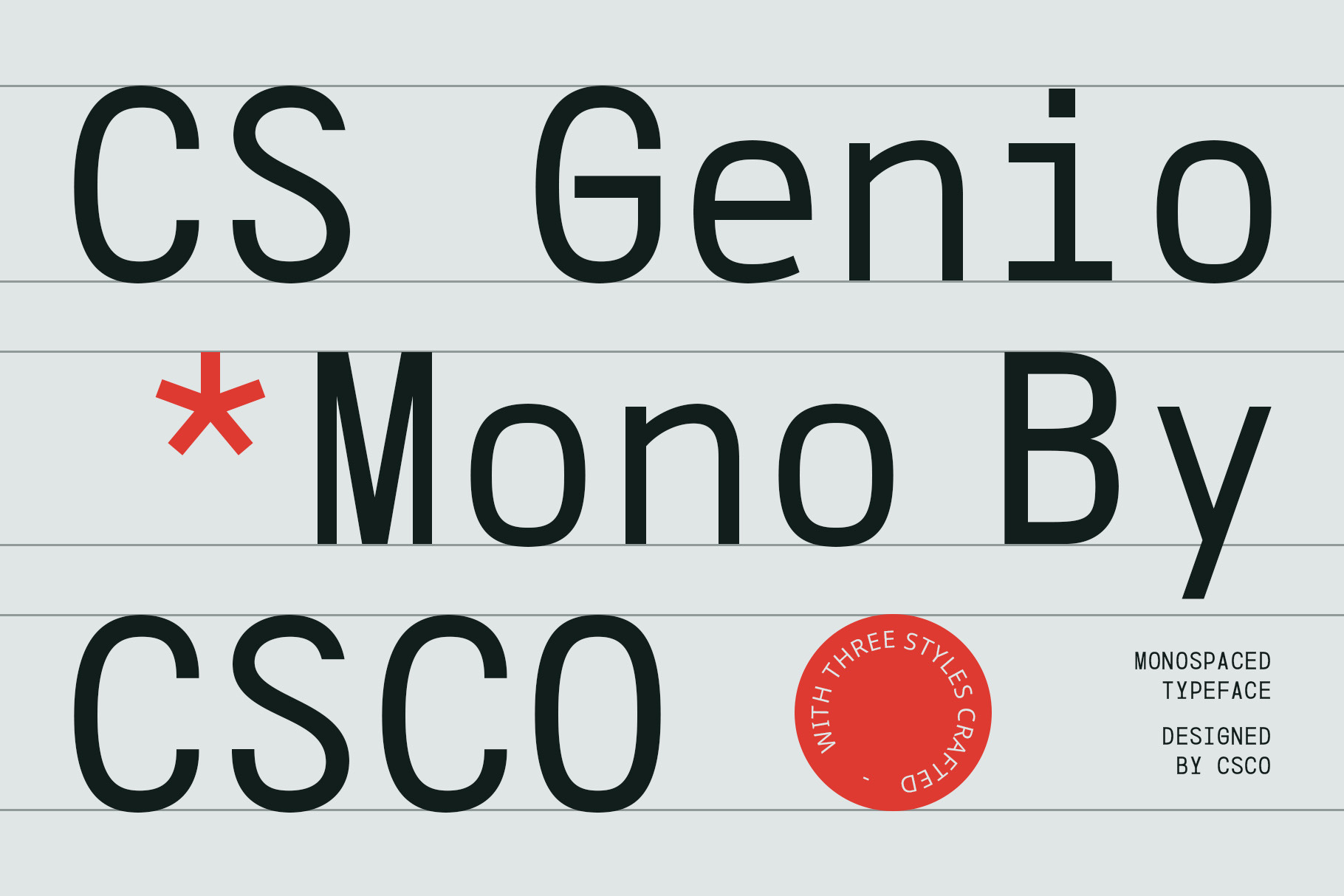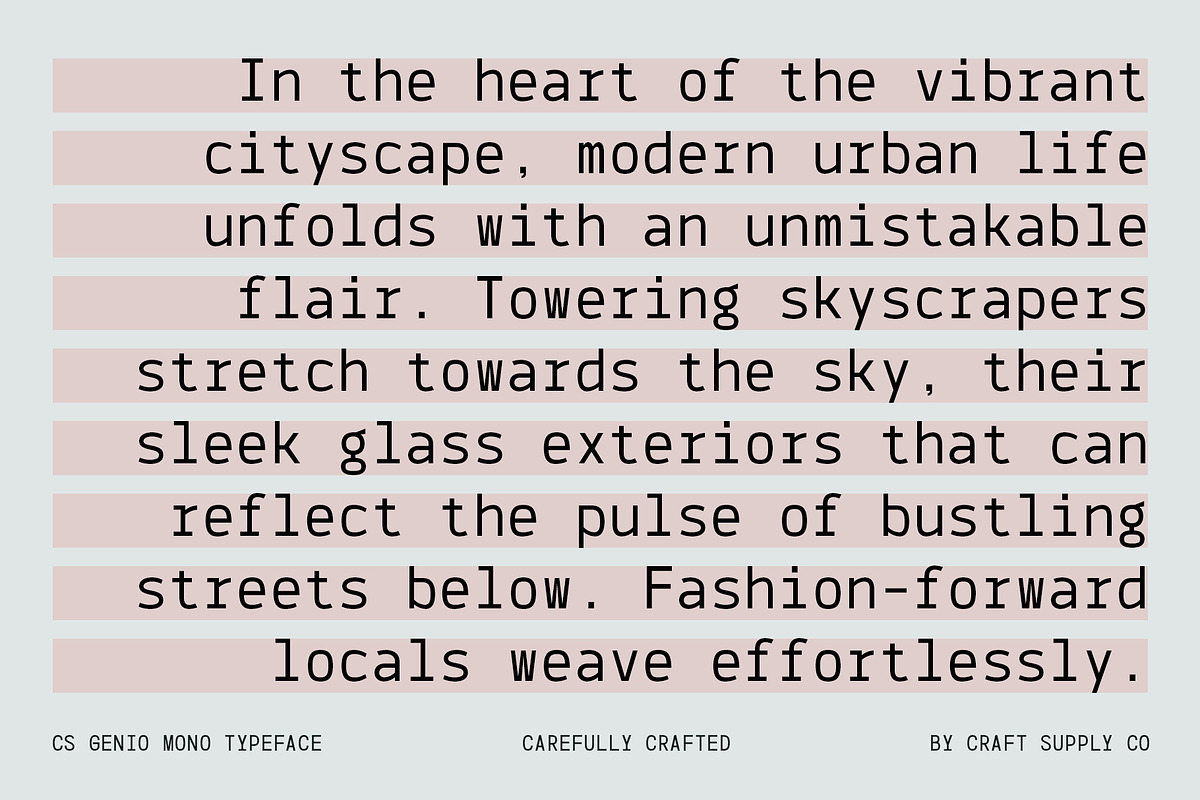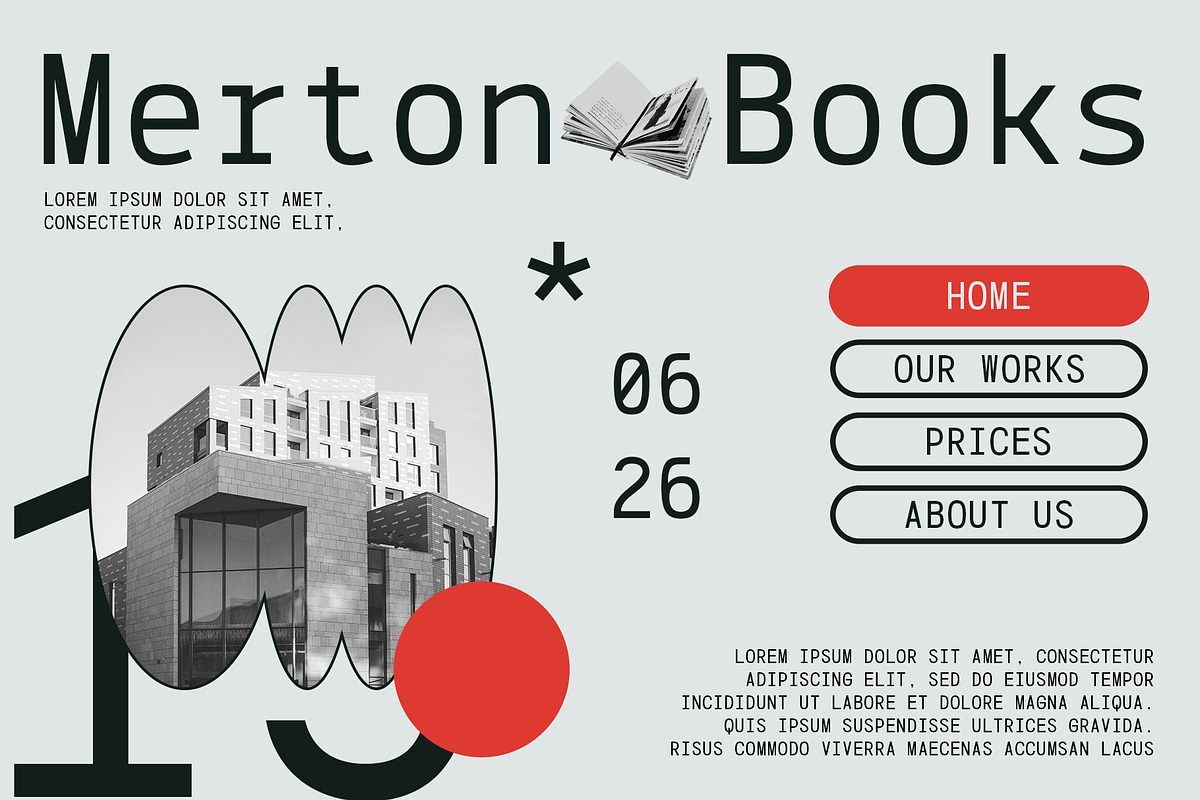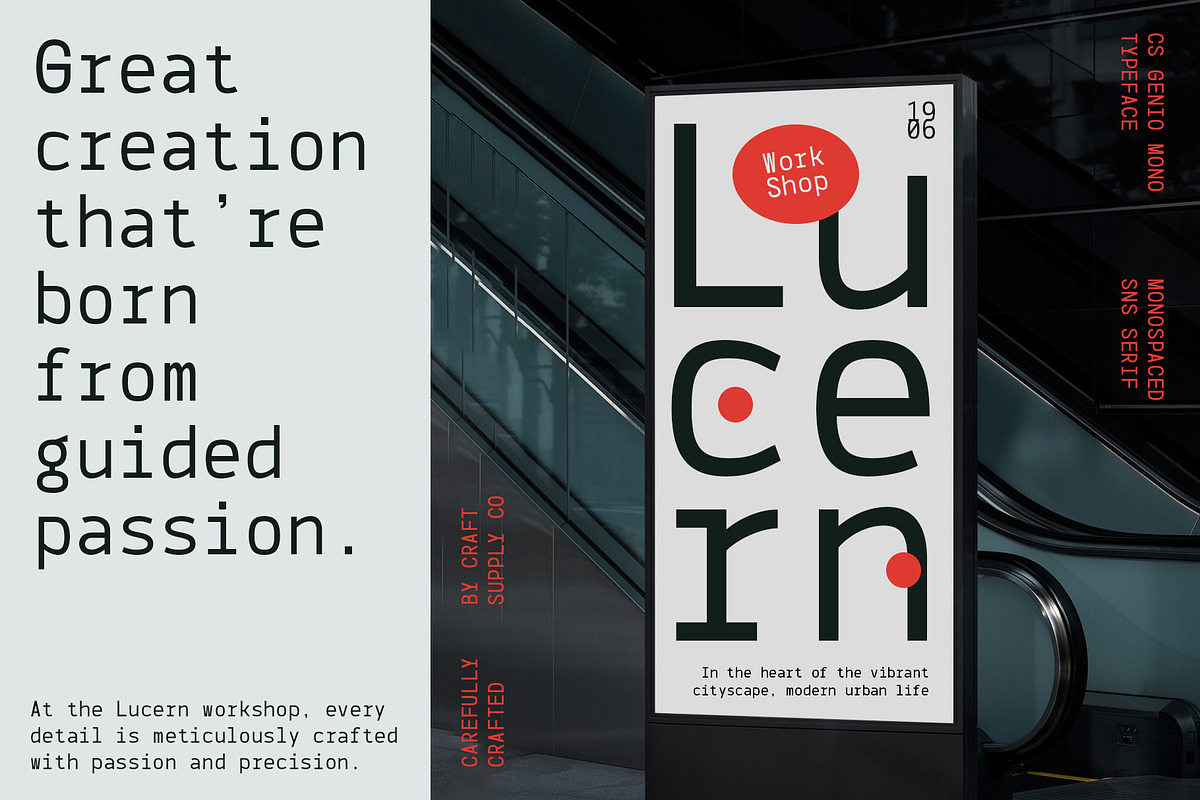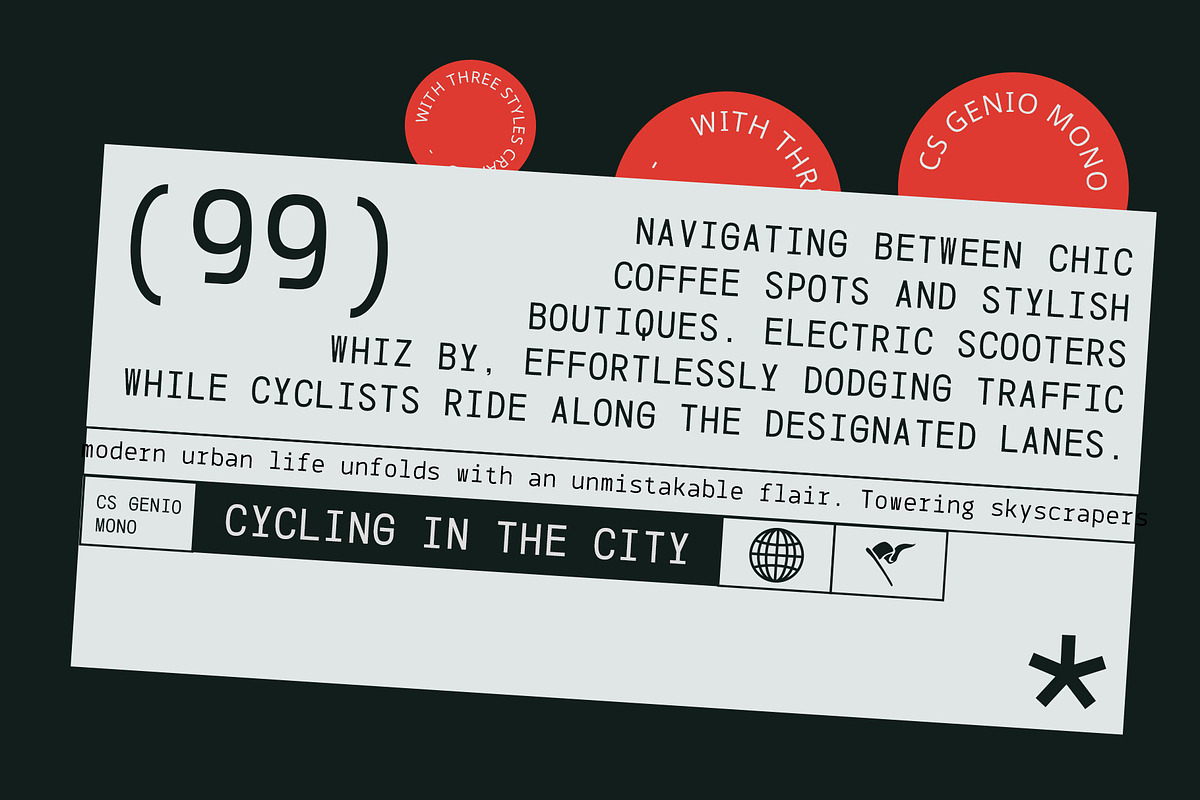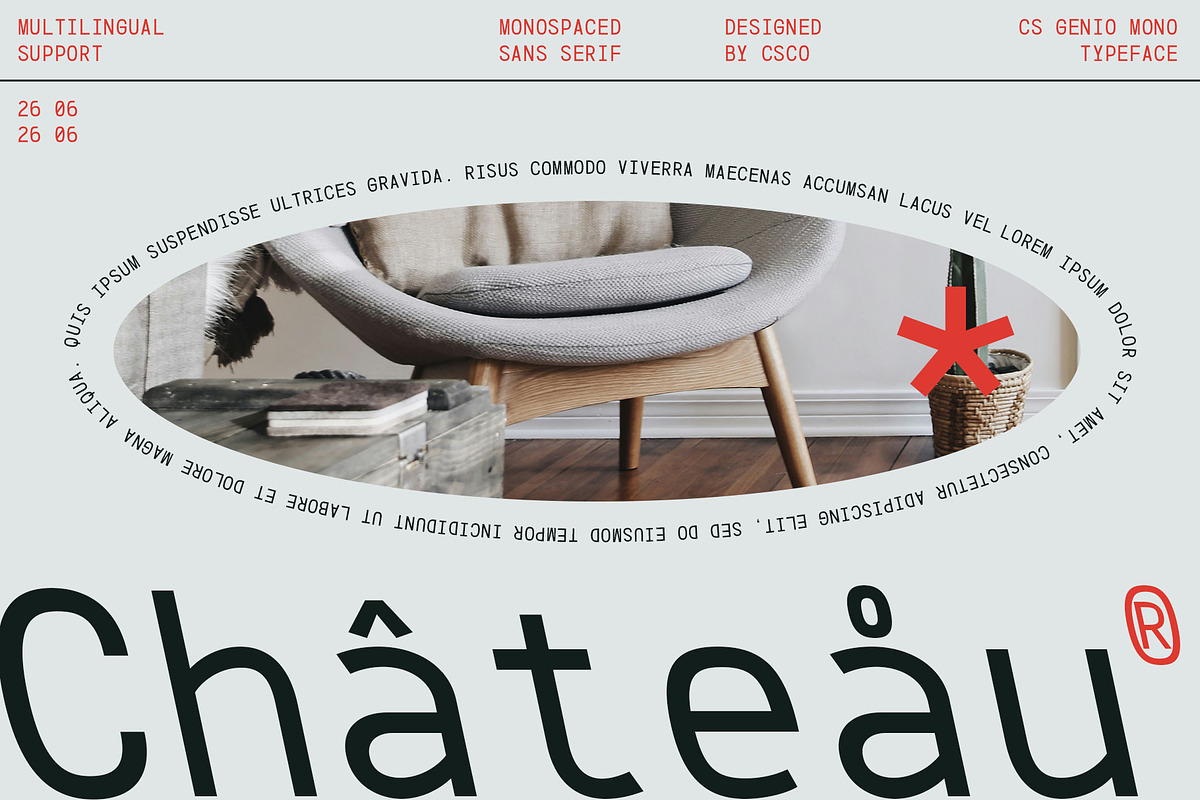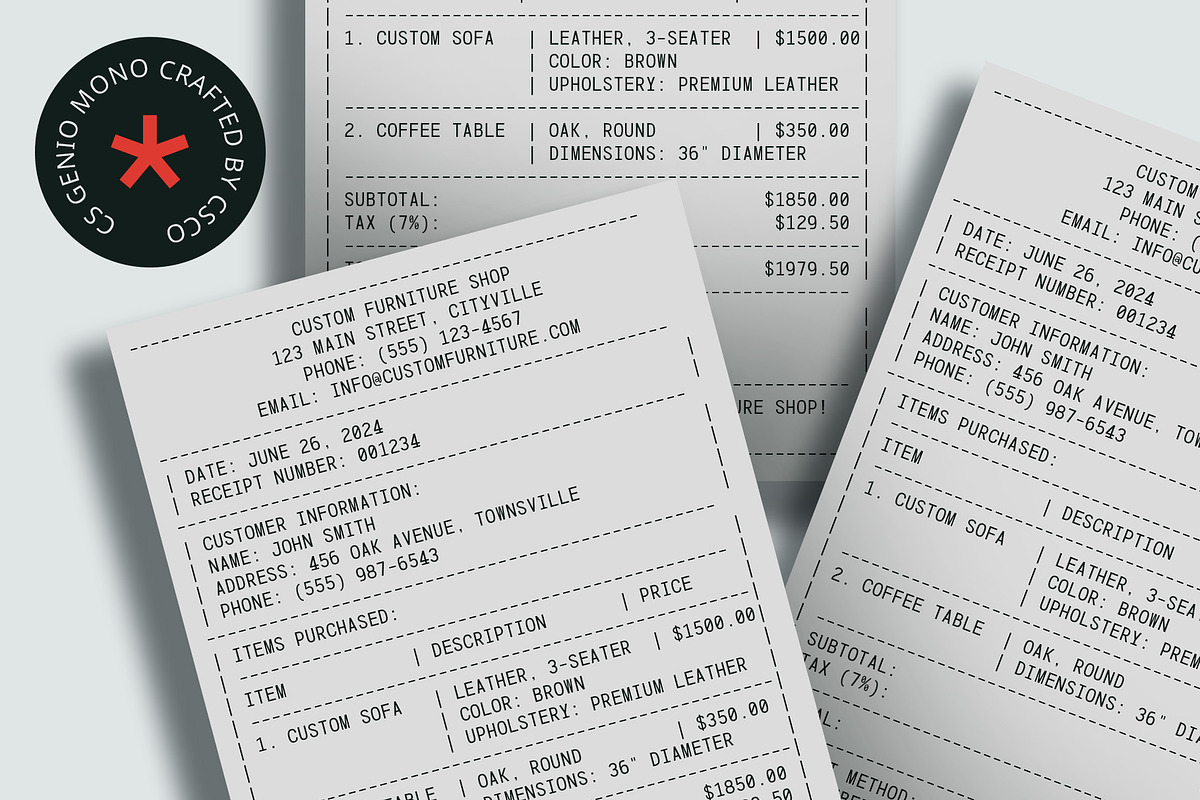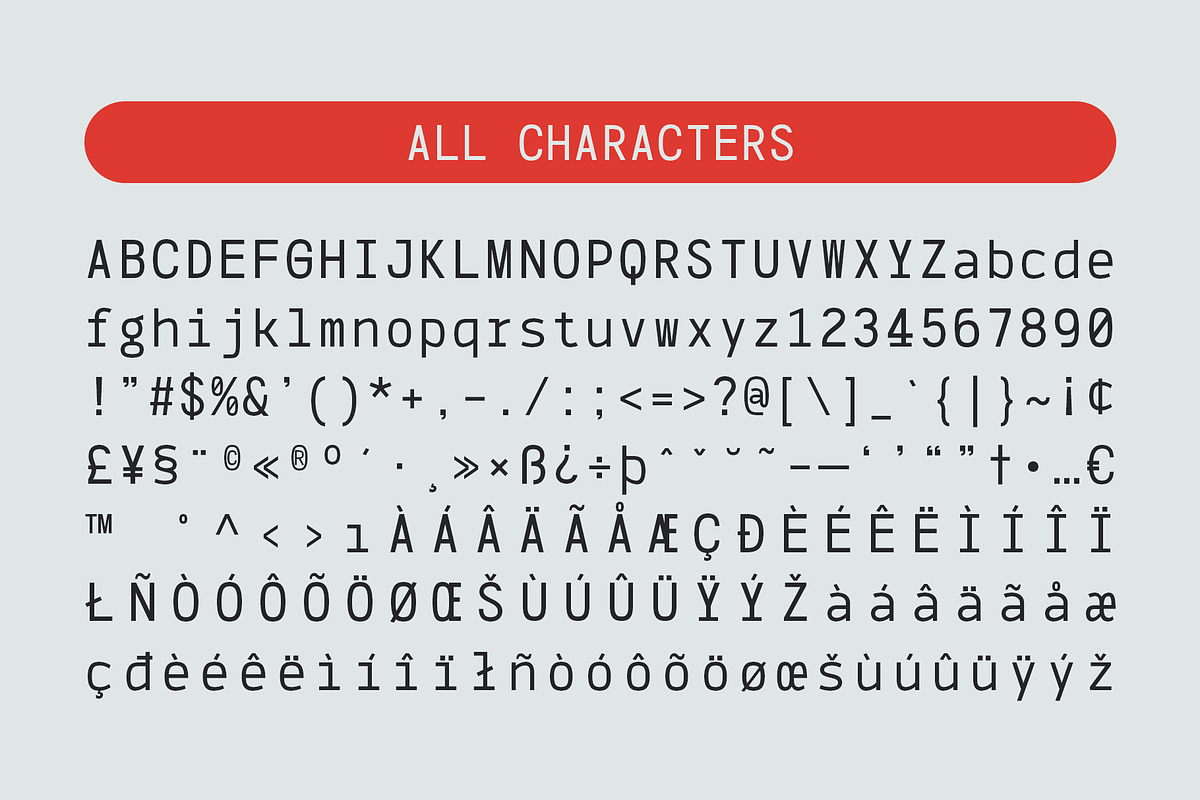
CS Genio Mono – Monospaced Typeface
CS Genio Mono – Monospaced Typeface: Essential Simplicity and Clarity for Contemporary Design
Clean and Uncomplicated Design
CS Genio Mono offers essential simplicity and clarity crucial in contemporary design. With its clean and uncomplicated sans serif typeface, this font is versatile for various modern design applications.
Suitable for Modern Design Applications
From responsive web design to minimalistic and elegant branding, this CS Mono font excels in modern design contexts. Its straightforward design ensures readability and maintains a professional appearance across different media.
Maintaining Clarity at All Sizes
What sets this CS Mono font apart is its ability to maintain clarity at both small and large sizes. Whether used for body text, headlines, or graphics, this monospaced typeface ensures readability and visual consistency, making it a reliable choice for diverse typographic needs.
Versatile Usage
This CS Mono font adapts seamlessly to a range of design applications where clarity and professionalism are paramount. Its clean lines and uncomplicated shapes contribute to a modern and cohesive visual identity in digital interfaces and printed materials.
Conclusion
In conclusion, this CS Mono font is a monospaced typeface that combines essential simplicity and clarity with a modern and professional appearance. Perfect for contemporary design applications requiring readability and visual consistency, this font enhances the clarity and impact of typographic elements across various media.